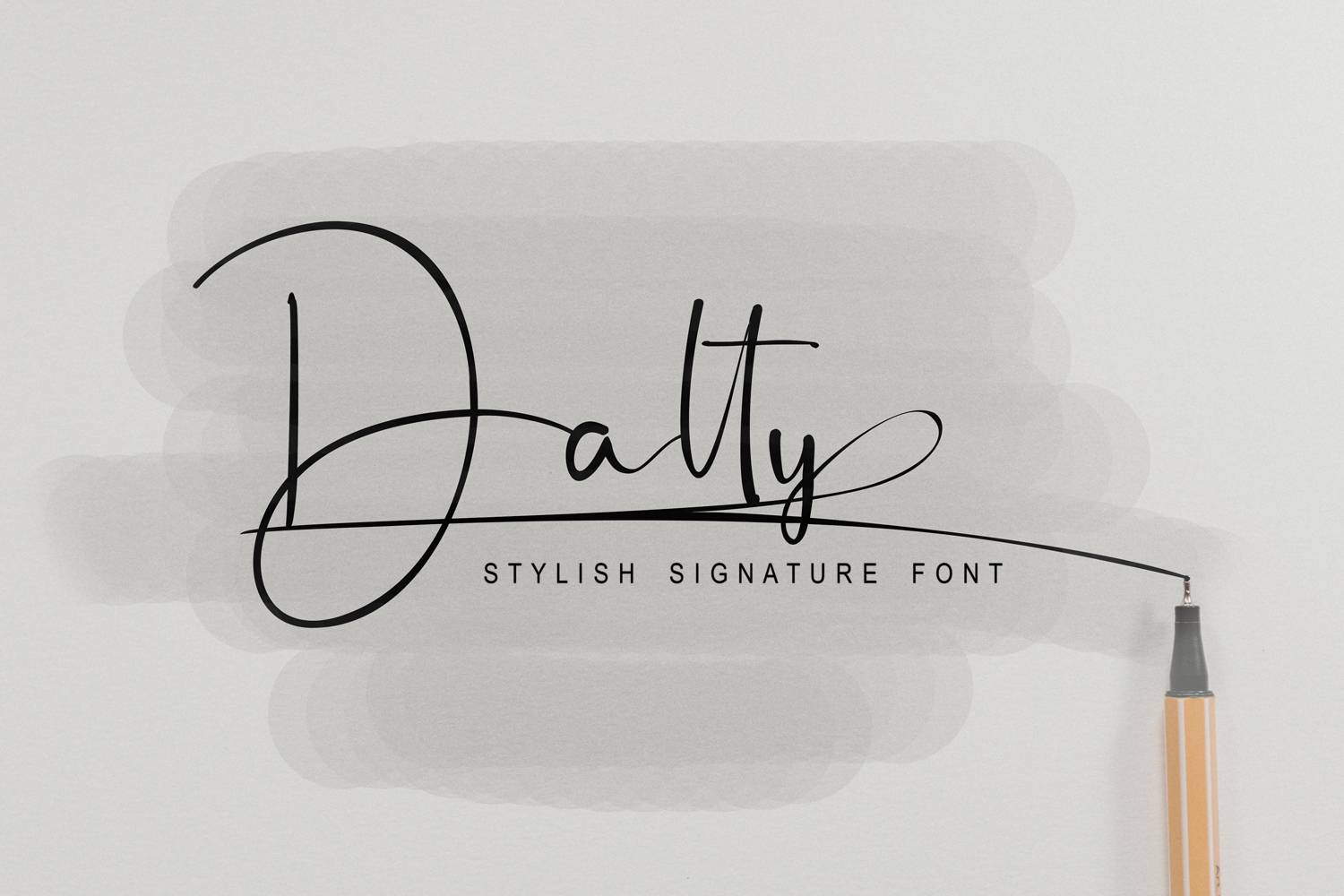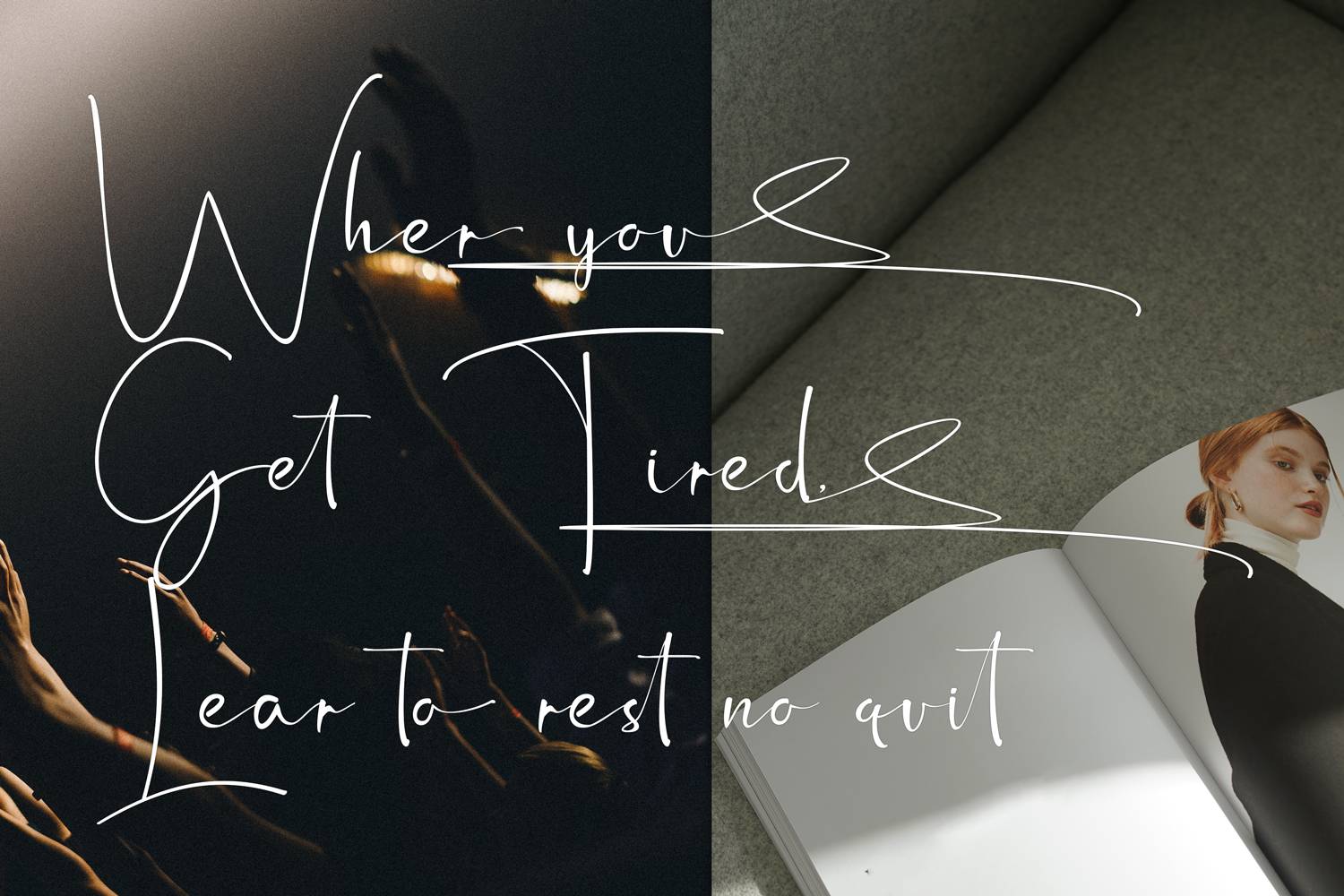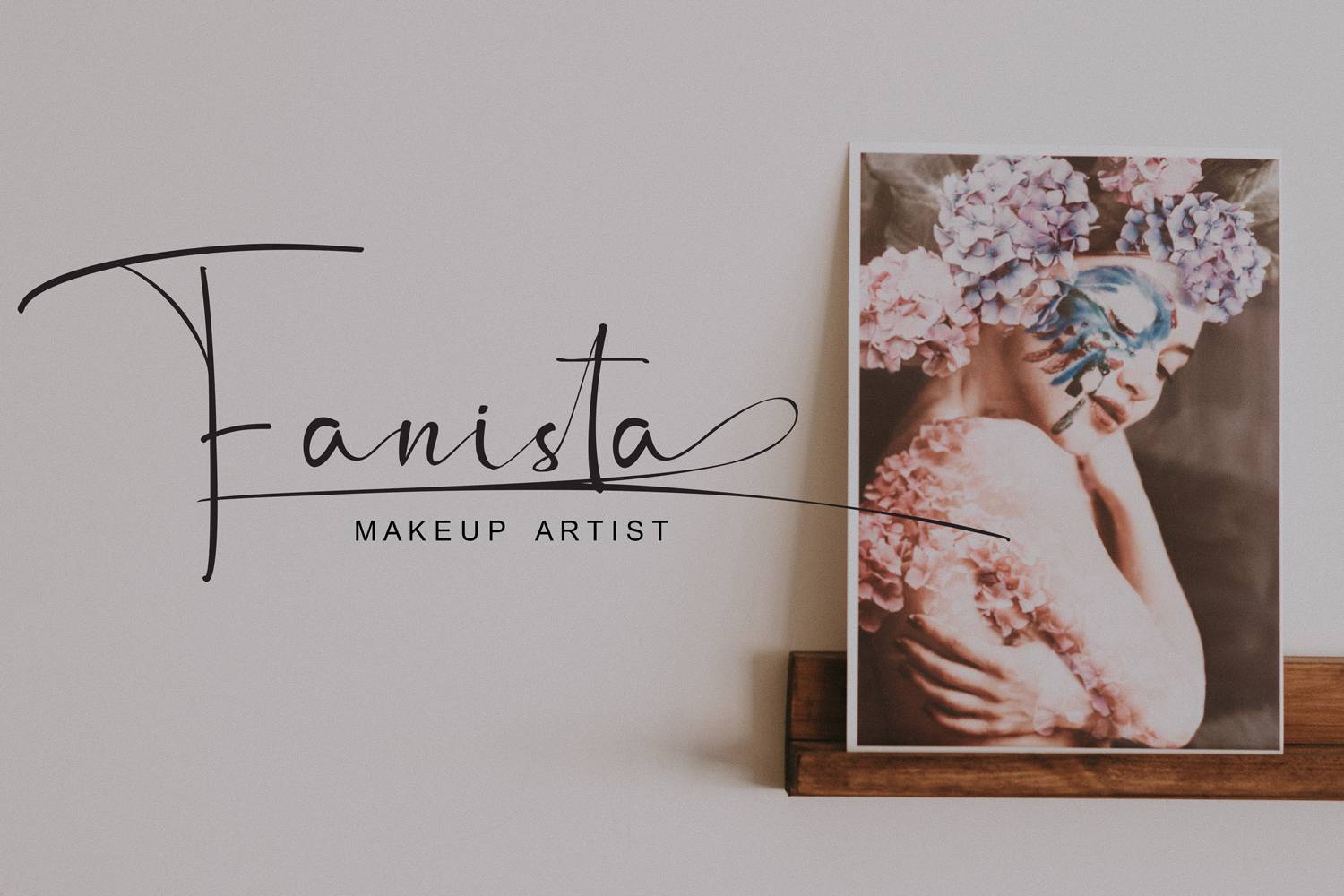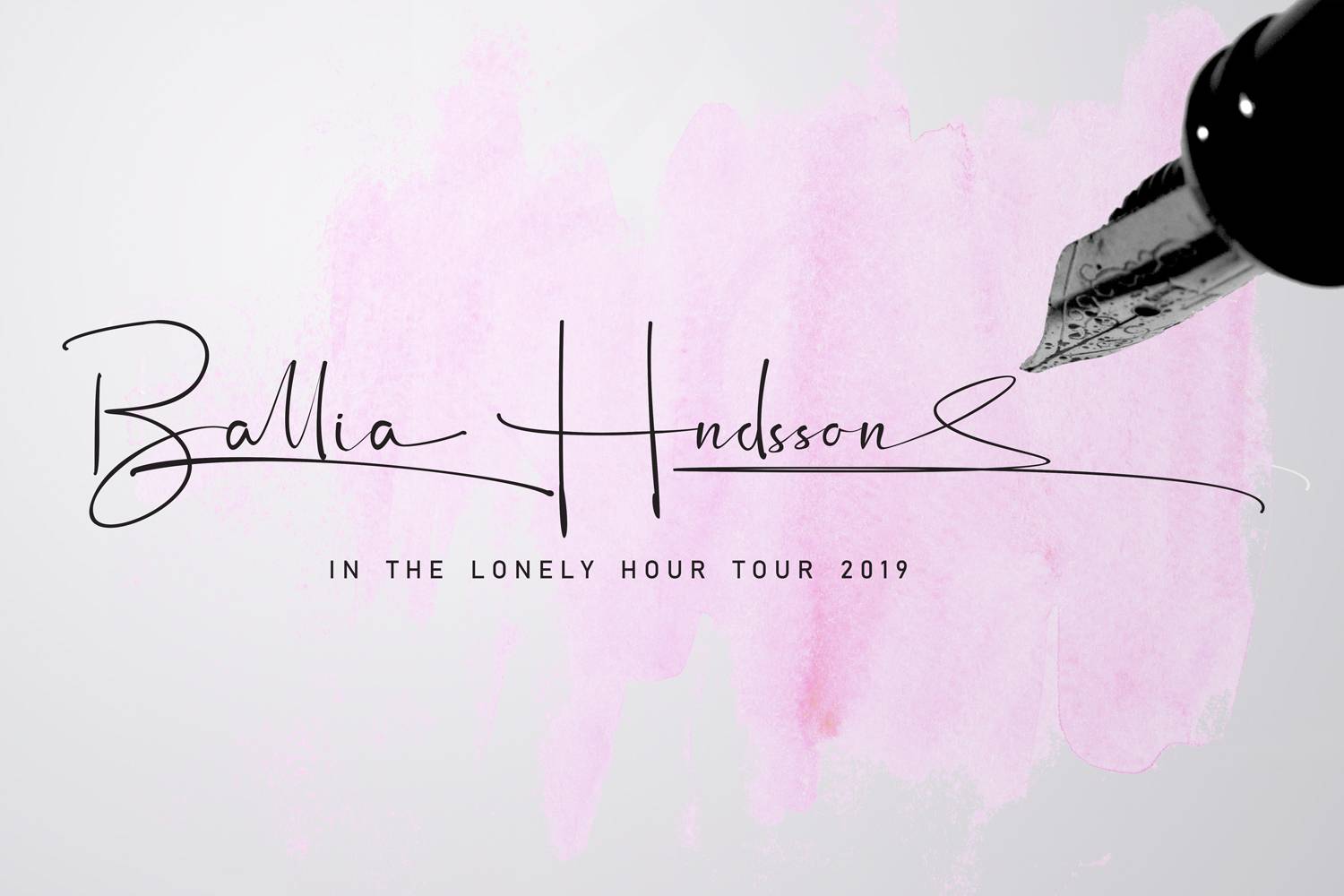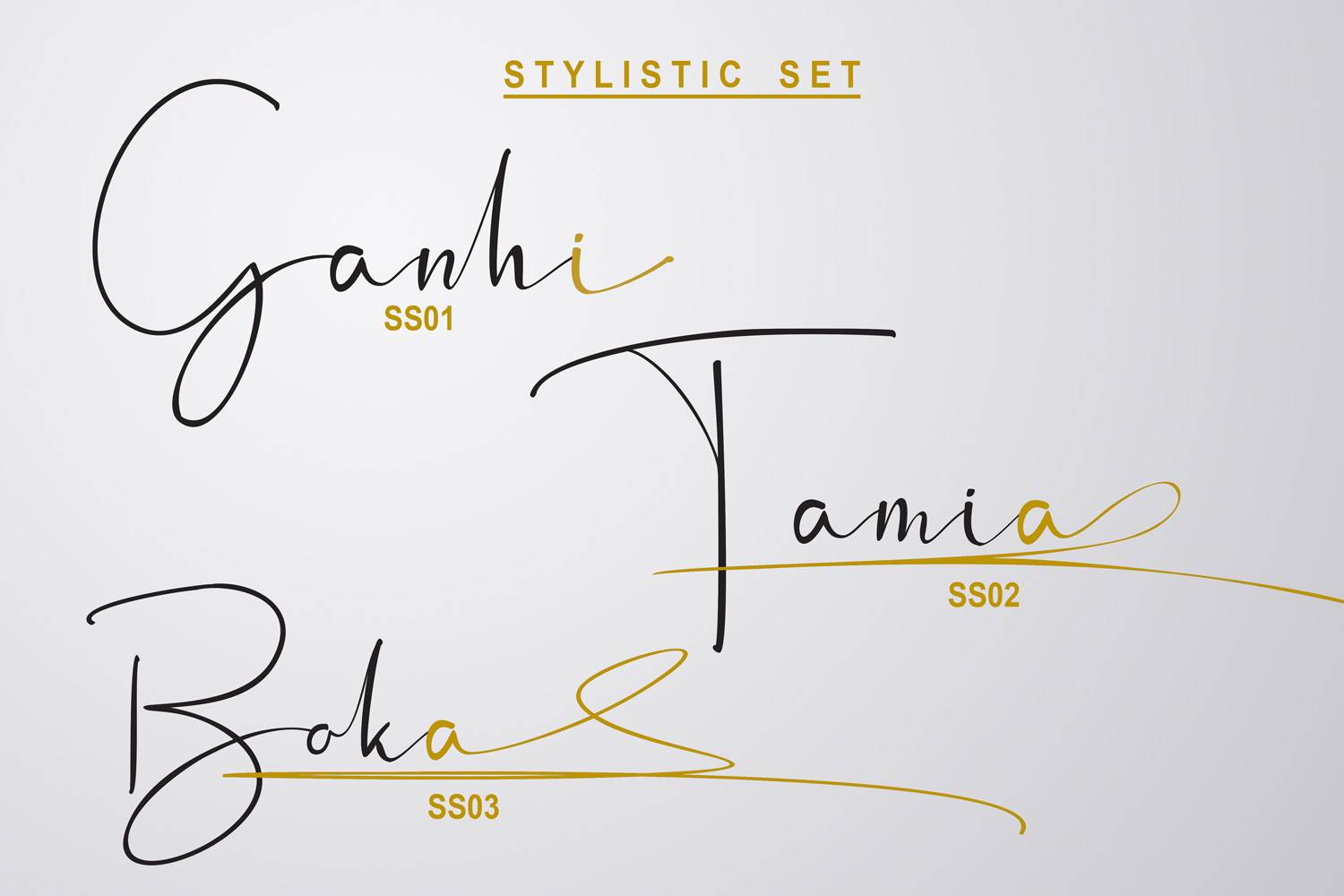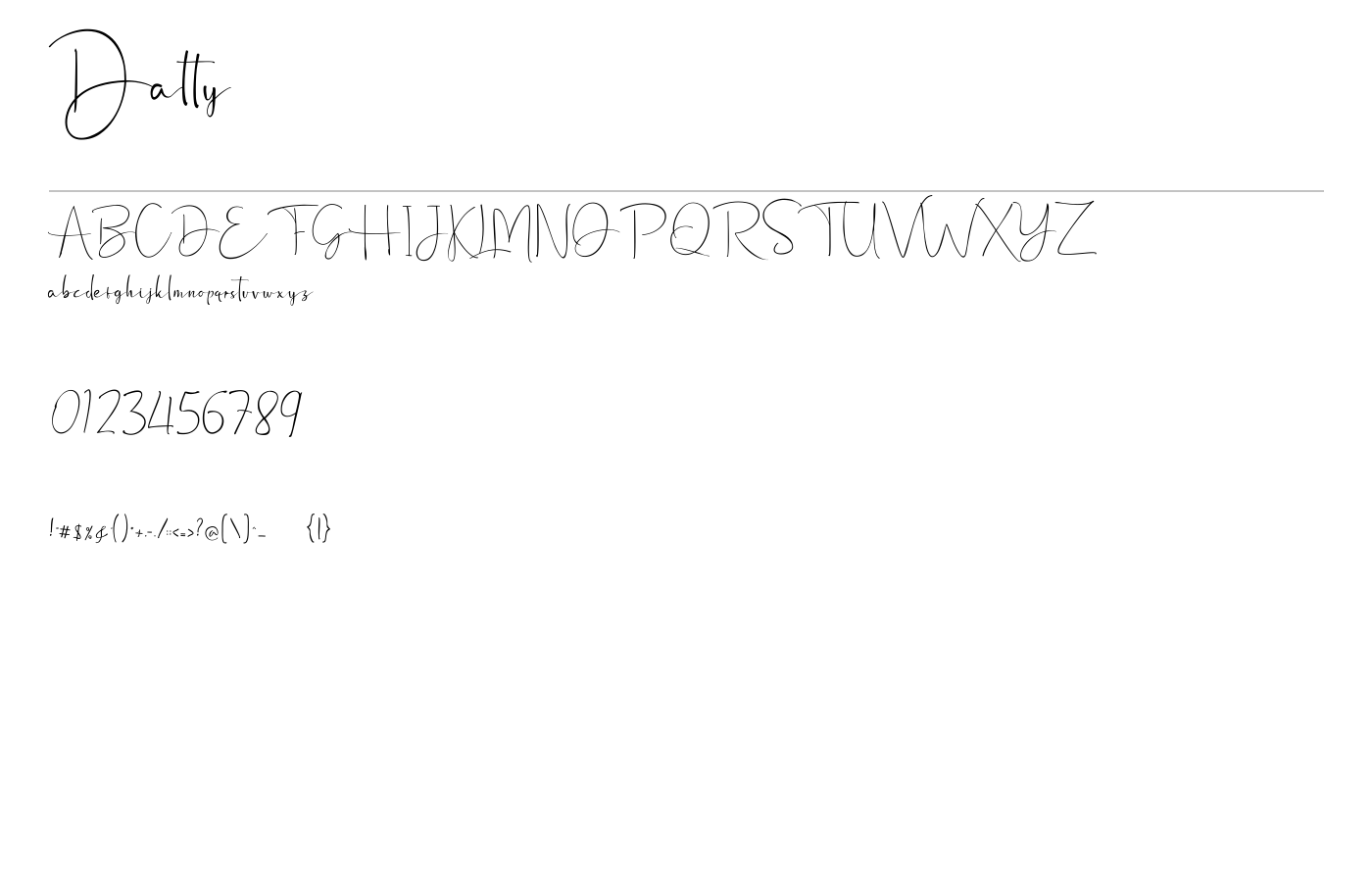
Dalty is a slender, delicate handwritten font with an airy, whimsical style that combines slender strokes and subtle irregularities, creating an elegant yet casual feel. Its tall x-height and lightly curved letterforms make it perfect for creative branding, invitations, and editorial designs that want to convey a playful yet sophisticated personality. This font works well in headlines and decorative text, adding a touch of charm and individuality wherever used.
Dalty Font
About Dalty Font